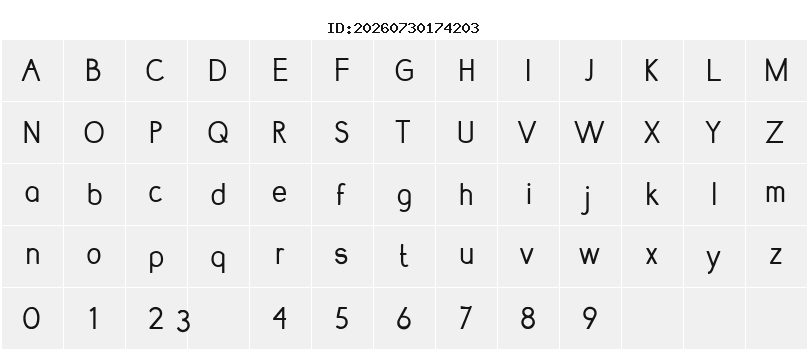
Lumnia Preview
• Font Name: Lumnia
• Designer: Laurens Jansen
About Lumnia.ttf
Lumnia.ttf is a modern, elegant sans-serif font designed for ultimate readability and visual harmony. Perfect for branding, headlines, web design, and print materials.